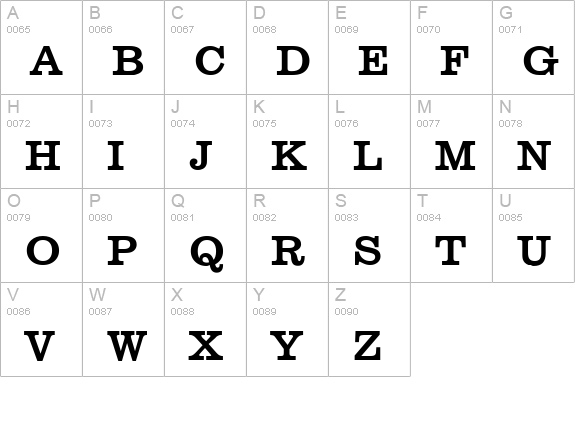
Broadcast Bold is a strong, high-contrast variant in the Broadcast typeface family \xE2\x80\x94 well suited to headlines, attention-grabbing titles, and strong calls-to-action.
Introducing Broadcast Bold, a striking and versatile typeface that demands attention with its bold and powerful presence. This modern font exudes confidence and sophistication, making it perfect for various design projects that require a strong and impactful aesthetic. Whether used for headlines, posters, branding, or any other creative endeavor, Broadcast Bold effortlessly commands the viewer's gaze. The best part? Broadcast Bold is available for free download at FontsMarket.com. This means you can enhance your design work with this exceptional font without breaking the bank. Don't miss out on the opportunity to add Broadcast Bold to your font collection and elevate your projects with its bold and dynamic appeal. Download now and let your designs make a lasting impression.